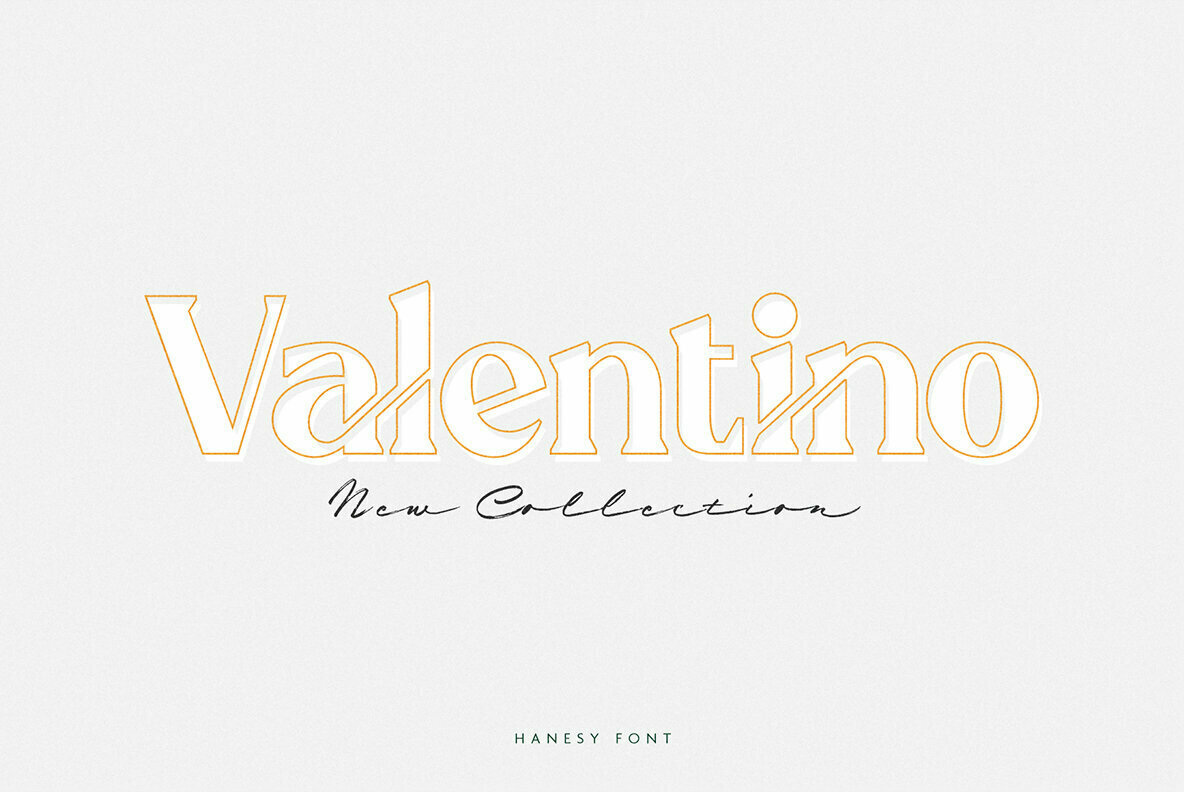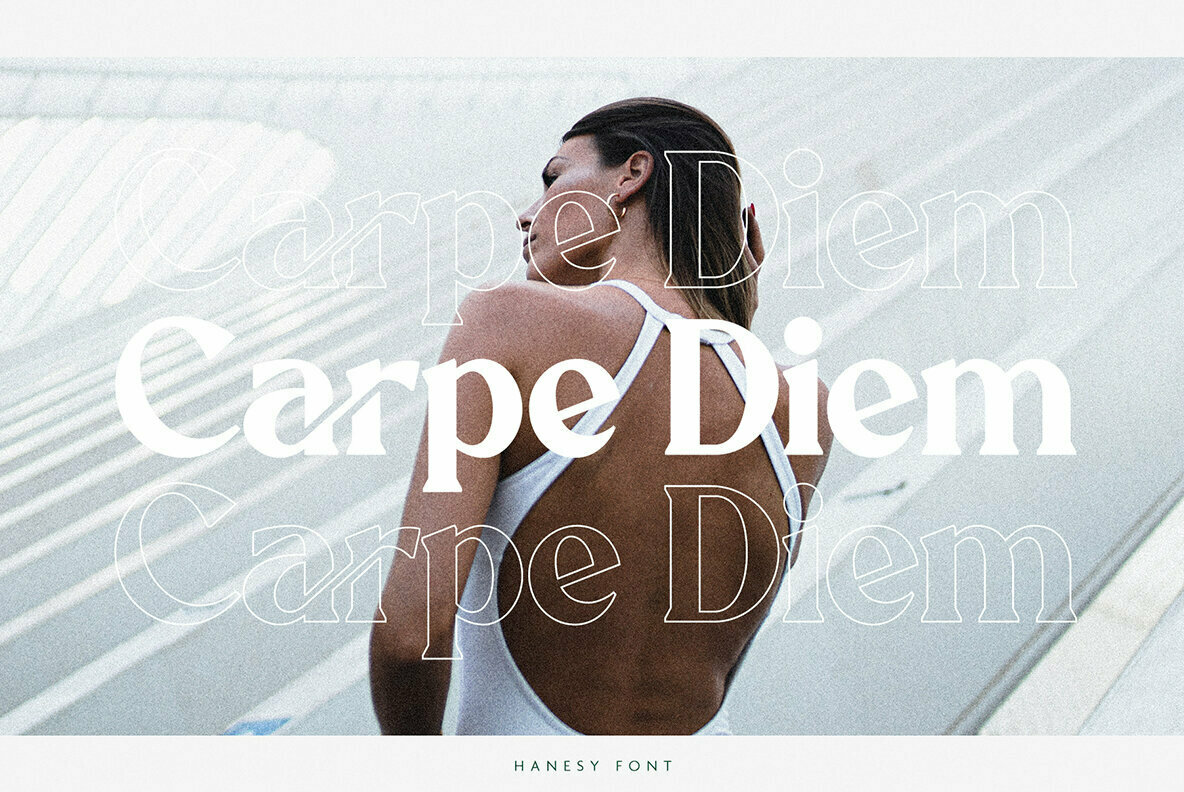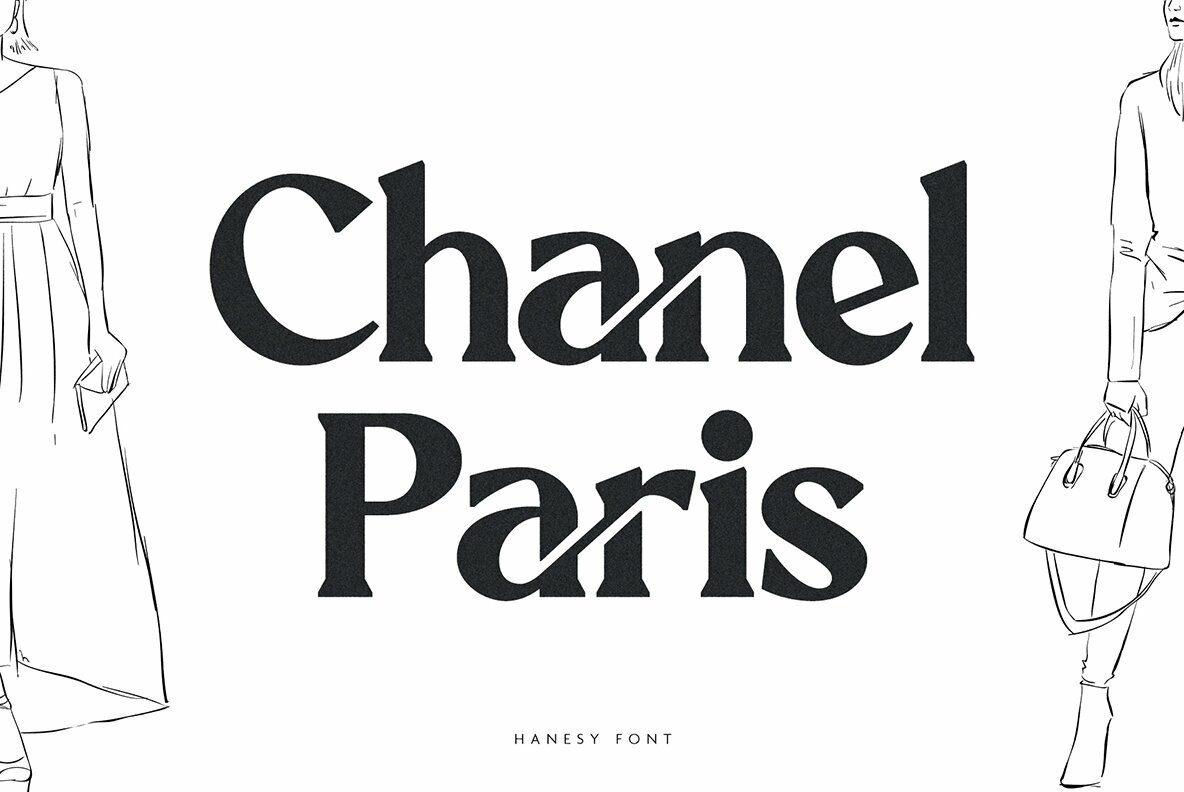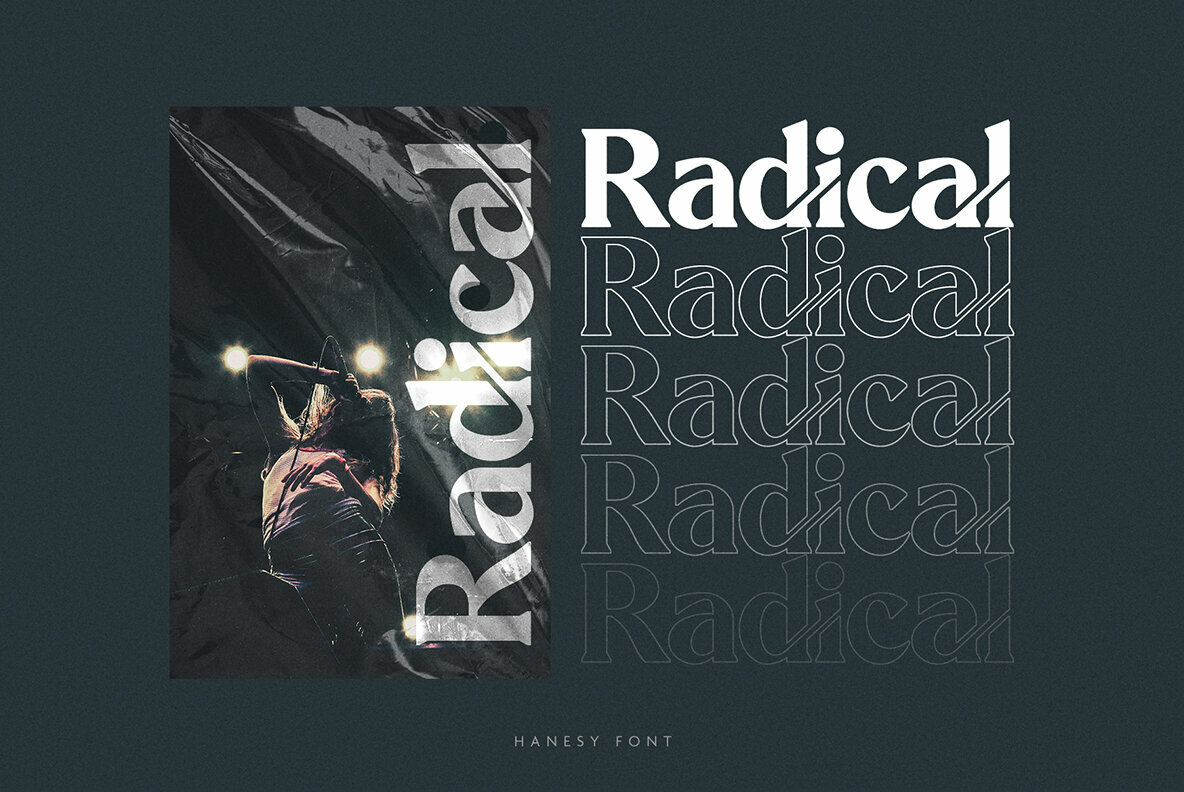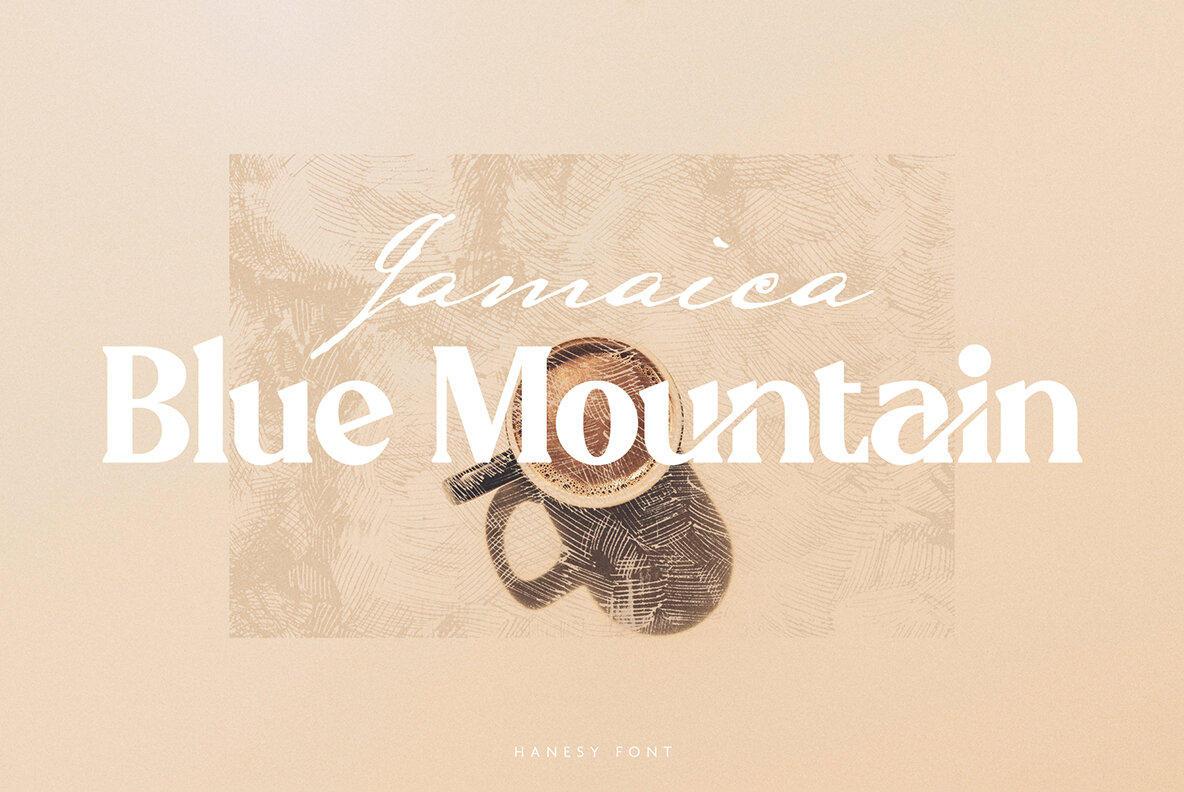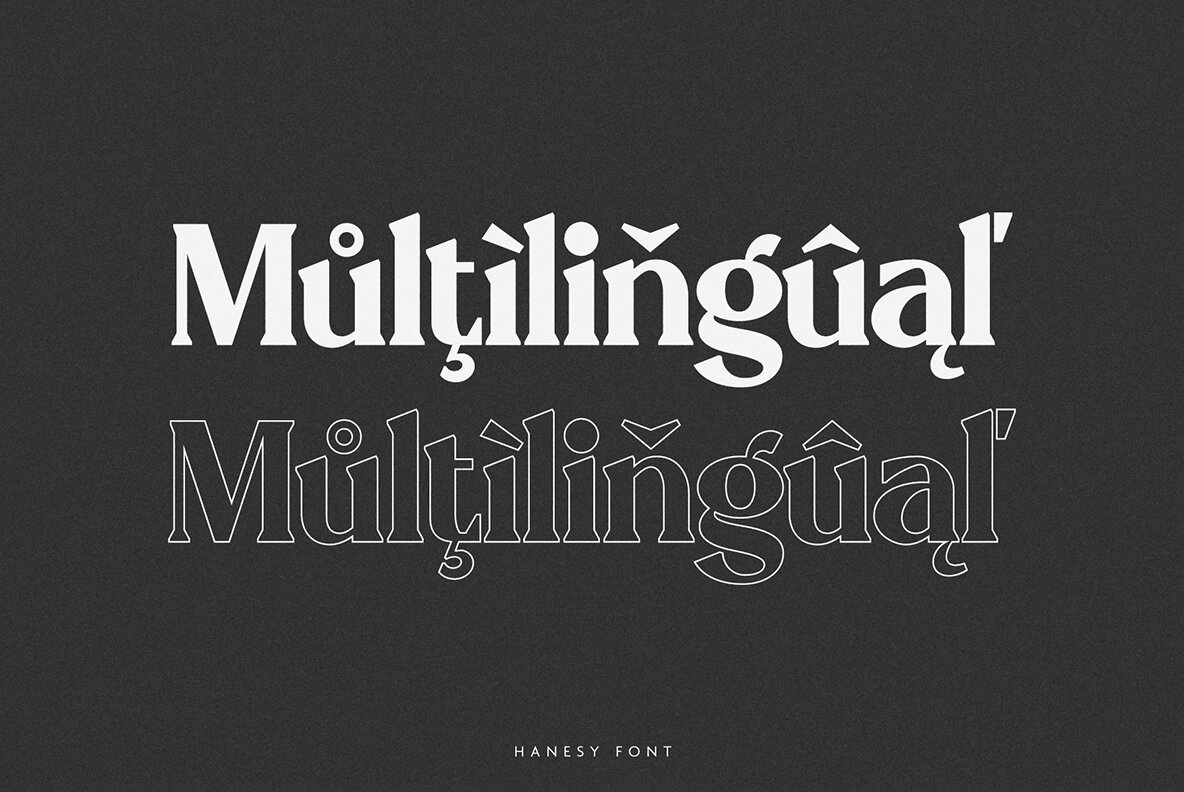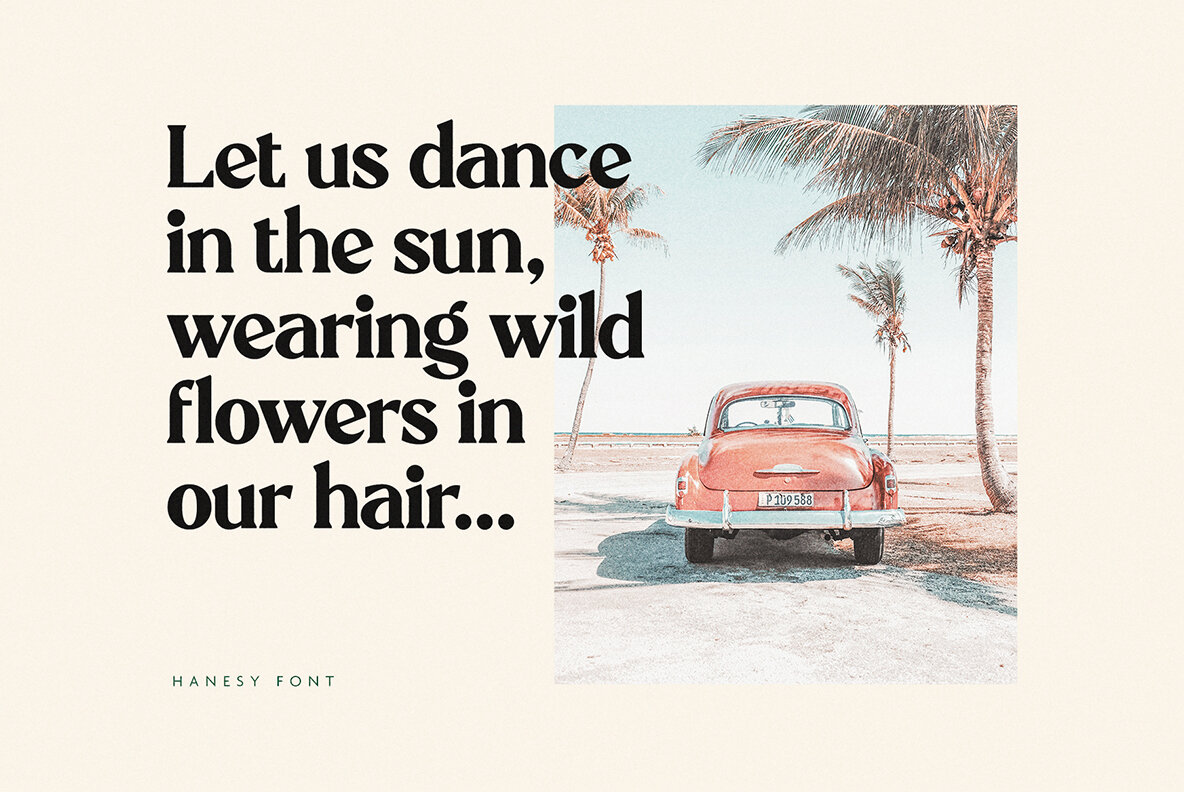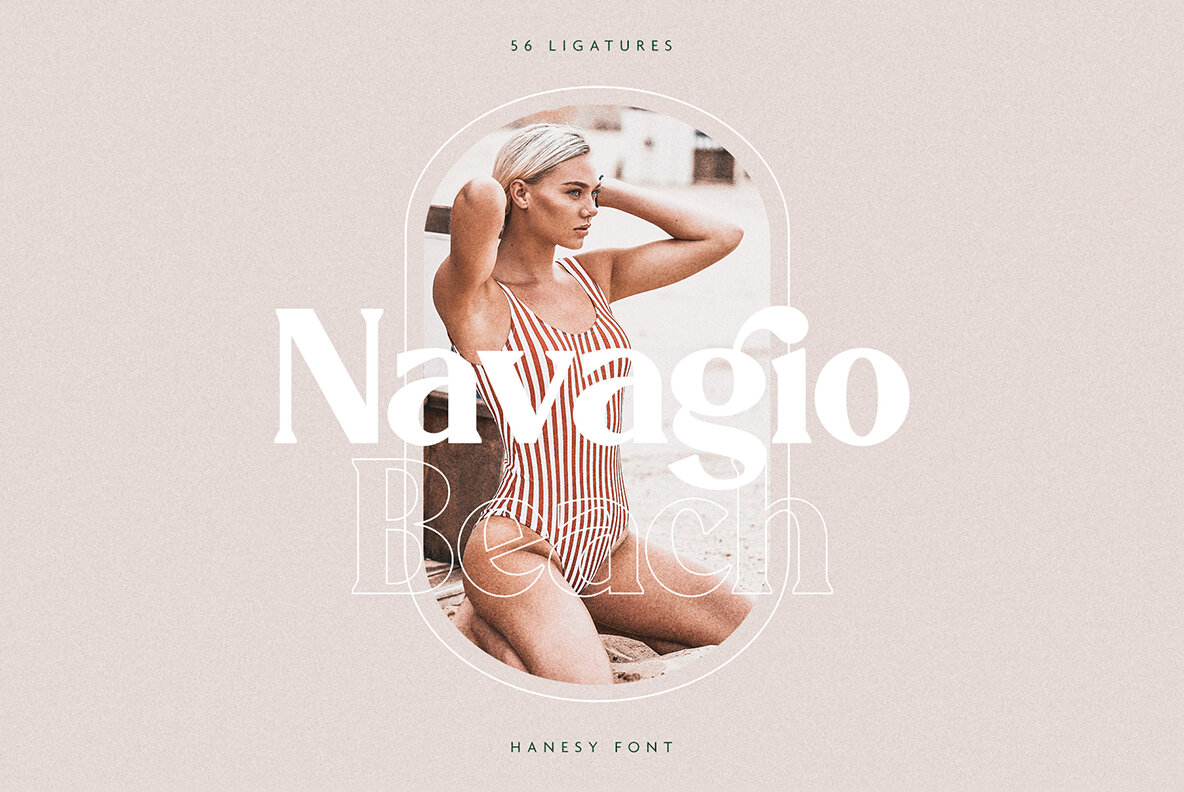
Hanesy 1
Hanesy is a serif font made mainly for headlines, titles, and other short texts and is well-suited for advertising, vintage mood board, branding, logotypes, packaging, titles, editorial design and modern and vintage design.